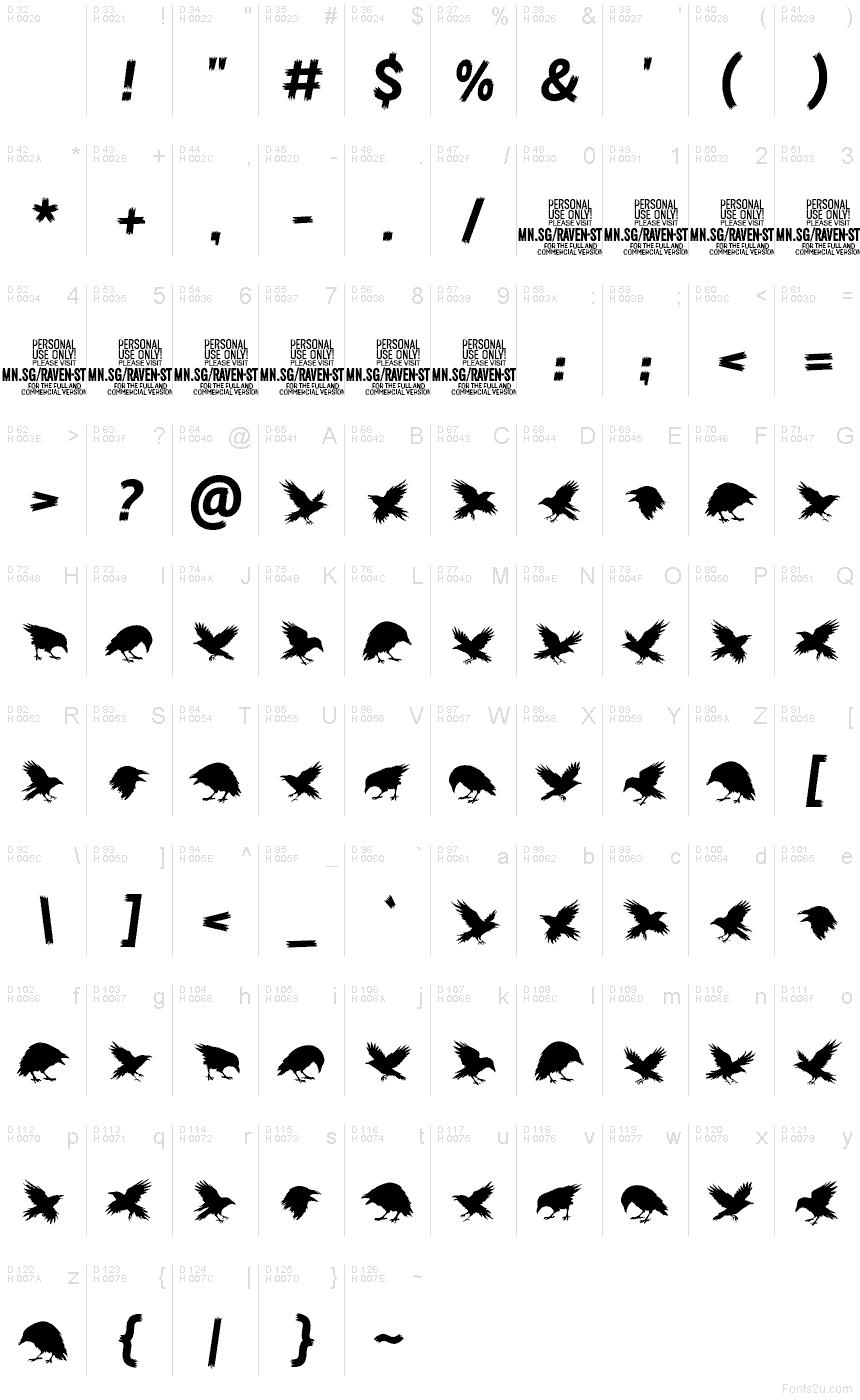
Raven Storm Symbols PERSONAL Regular
Raven Storm Symbols font by Mans Greback is a free animal dingbat font that solves a familiar headache: finding bold, high-quality bird silhouettes without trawling stock sites. Each glyph is a raven caught in motion—wings ragged and spread, claws braced to land, or hunched with a stormy profile—rendered as crisp, inky shapes that drop cleanly into any layout.
This free font shines on horror posters, Halloween invites, album art, nature zines, book covers, and moody branding. Using Raven Storm Symbols gives you instant, high-contrast icons that scale beautifully from badges to full-bleed graphics. Pair the silhouettes with a clean geometric sans to keep the typography readable, and let one oversized raven become the focal point.